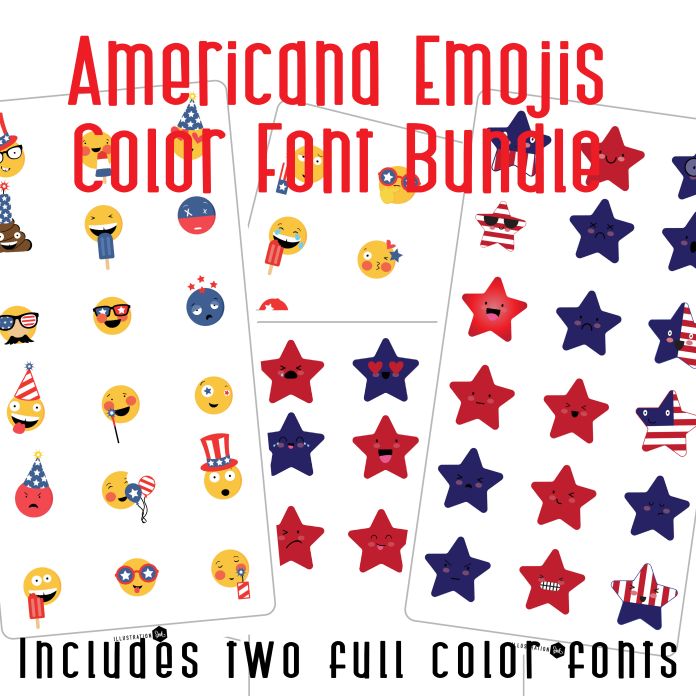
This bundle includes two full color dingbat fonts for one low price! With two full color fonts you get 52 total images of 26 patriotic smiley face emojis and 26 patriotic star emojis. Both color fonts are perfect for Independence day, cards, crafts, gifts, decor, classrooms, planner stickers, scrap book pages and more!